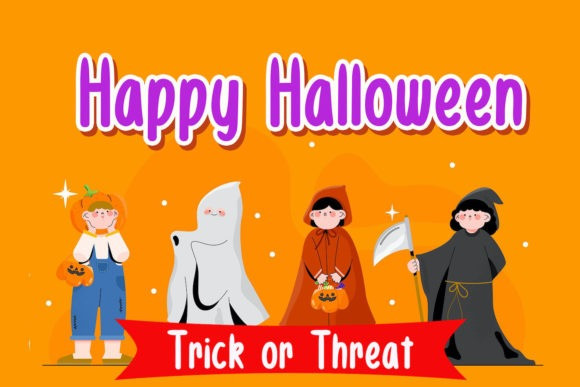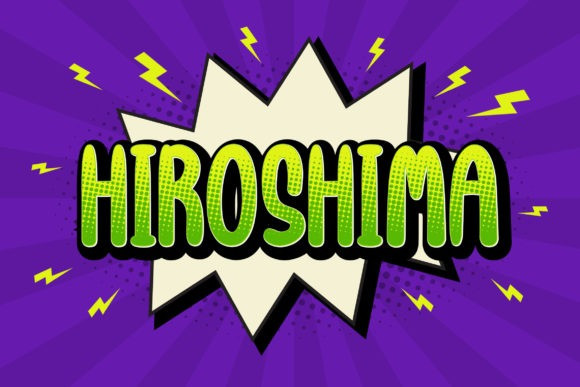
Hiroshima Font
Hiroshima Font is a bold and trendy looking display font. Playful and fresh, this font will be a hit for each of your retro projects! The only limit is your imagination!